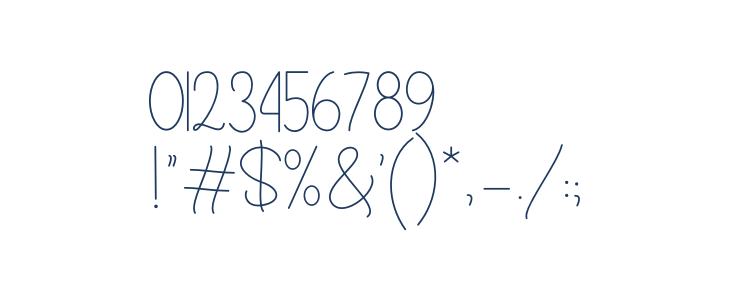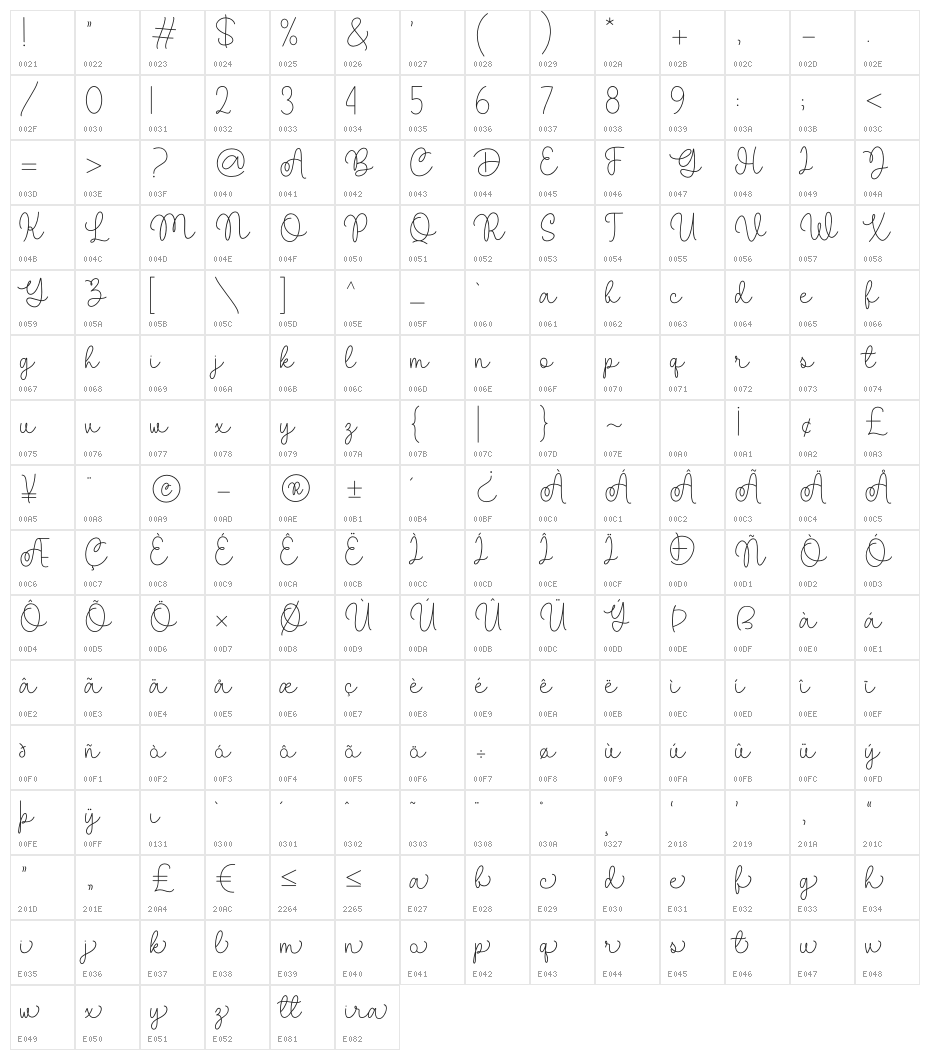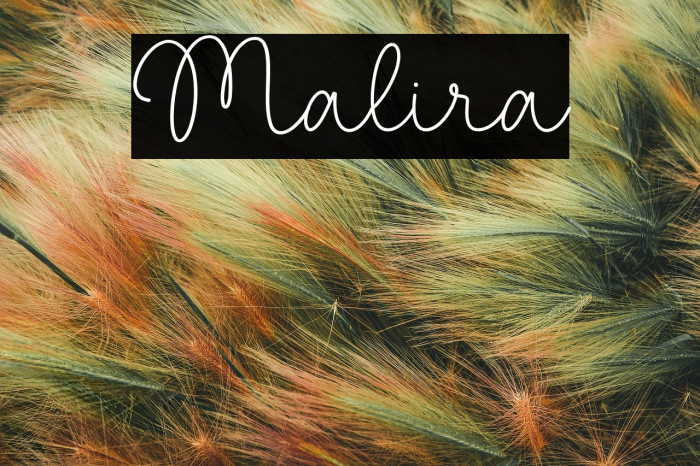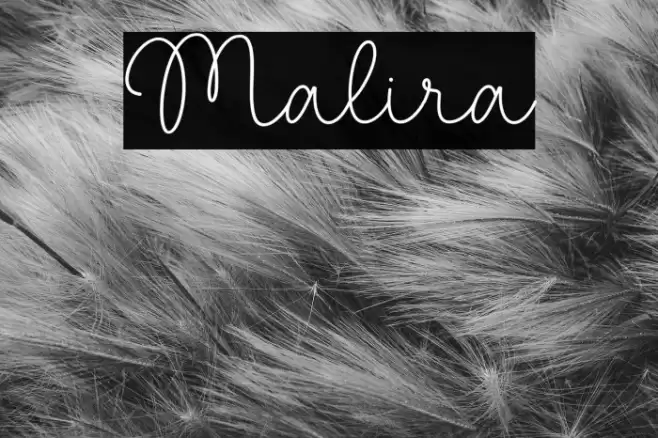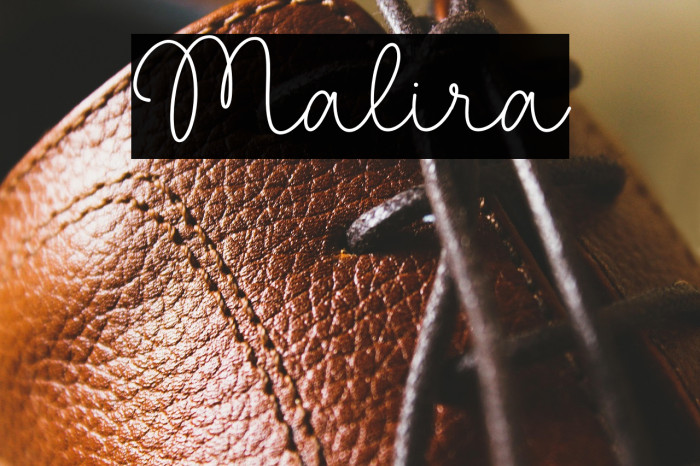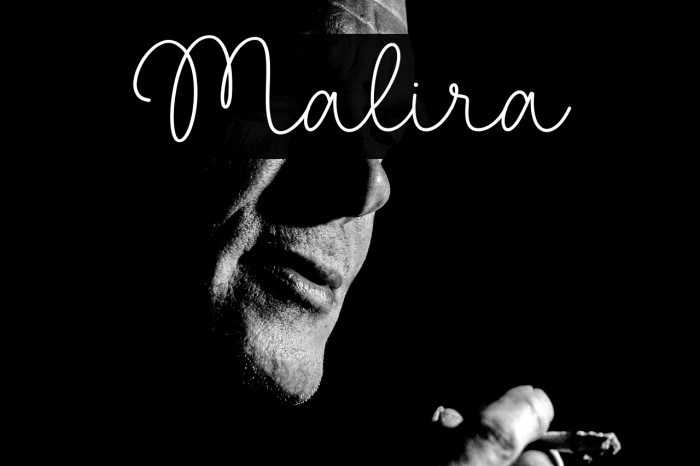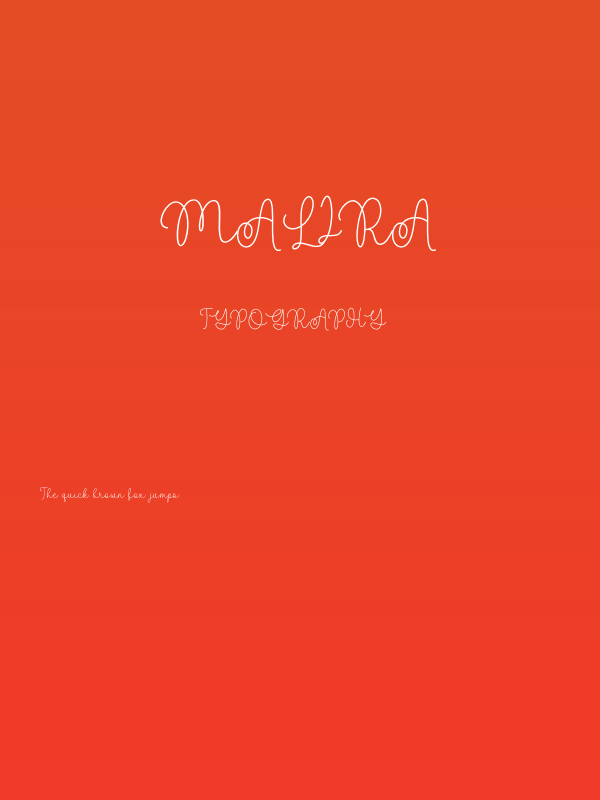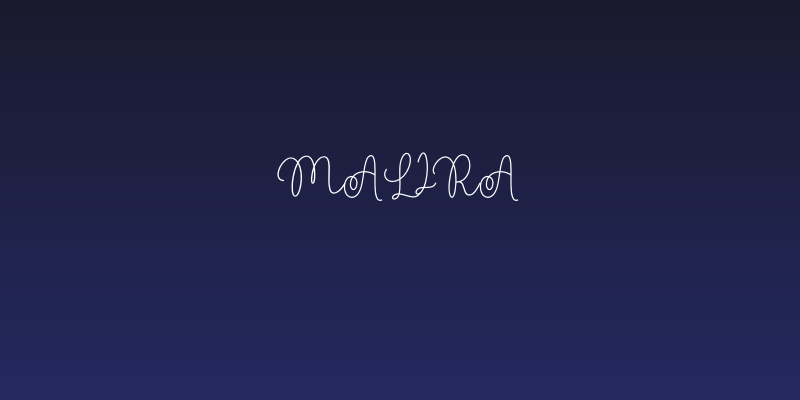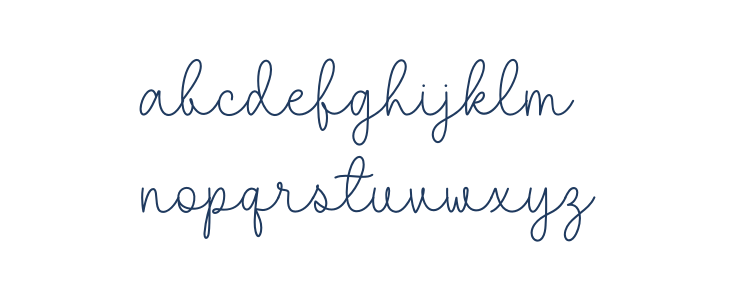
Malira Font
Malira Description
This font features an elegant and flowing script style, characterized by its smooth, continuous strokes and graceful curves. The uppercase letters are distinct with their looping ascenders and descenders, giving a sense of fluidity and movement. The lowercase letters maintain a consistent flow, enhancing readability while retaining a sophisticated appearance. Numbers and special characters are designed to complement the overall script style, maintaining the same fluid and elegant aesthetic. This font is perfect for projects that require a touch of elegance and sophistication.